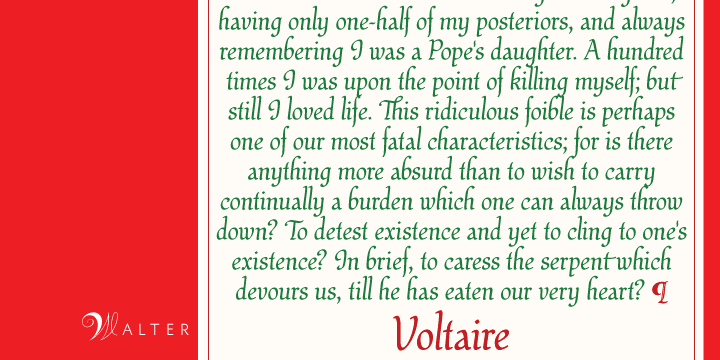
Walter is a script font published by Canada Type.
This broad pen classic is a revival of Walter MacKay’s Heritage font, made for ATF in 1952.
Walter is clean and legible free-flowing calligraphy with a subdued, conservative and traditional letterform base that can be used in large sizes for posters, covers and packaging, as well as in small sizes for personalized letters, poetry and quotables.